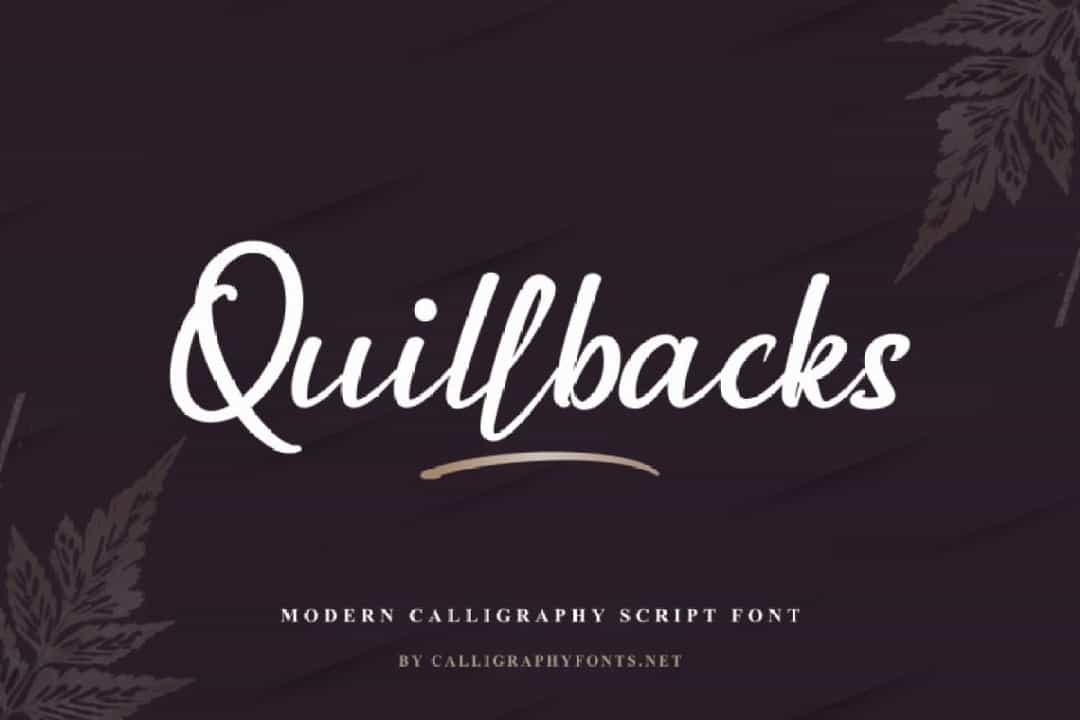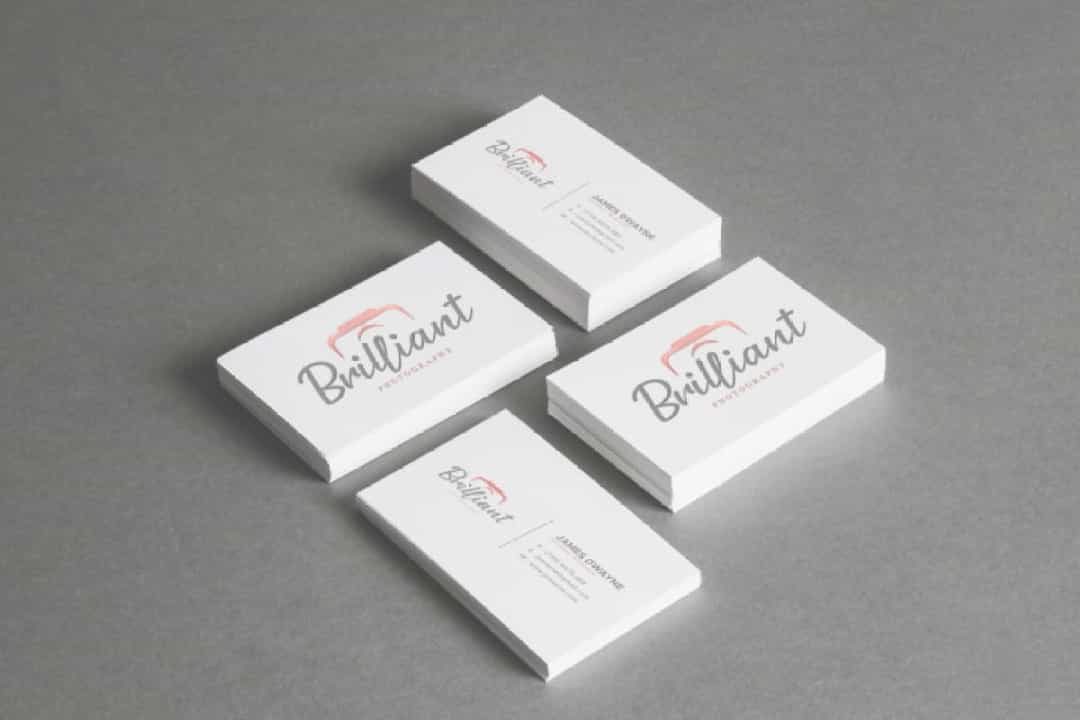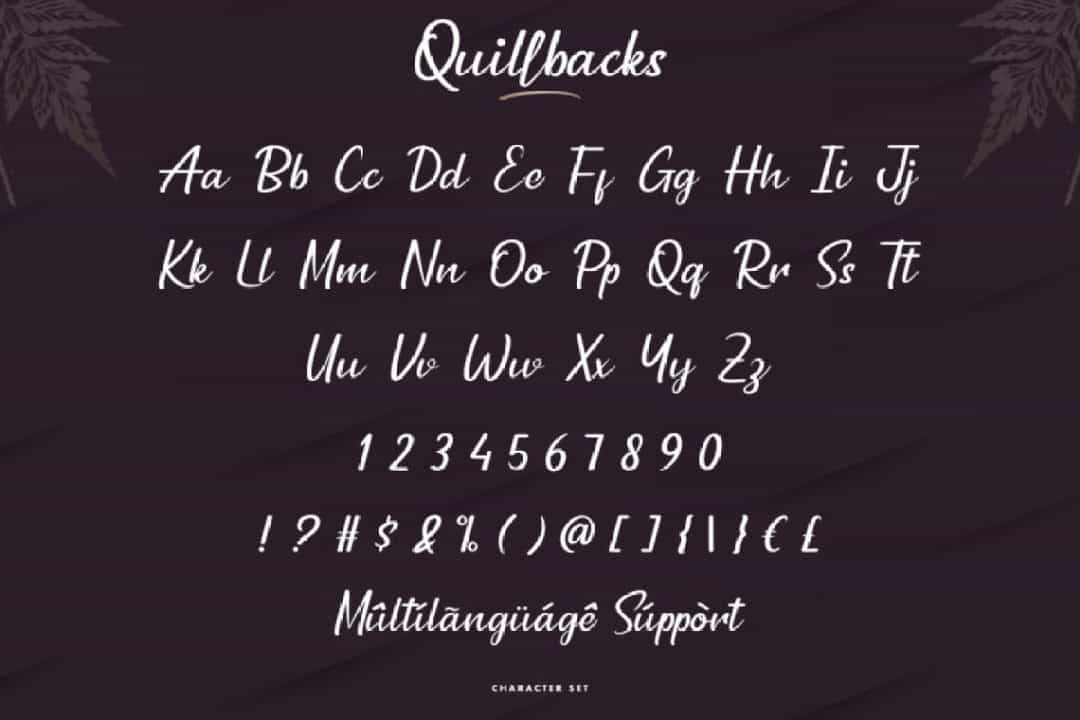
Quillbacks is a modern calligraphy font that is all about casual elegance. This font is a combination of many modern elegant luxurious brush fonts into one font.